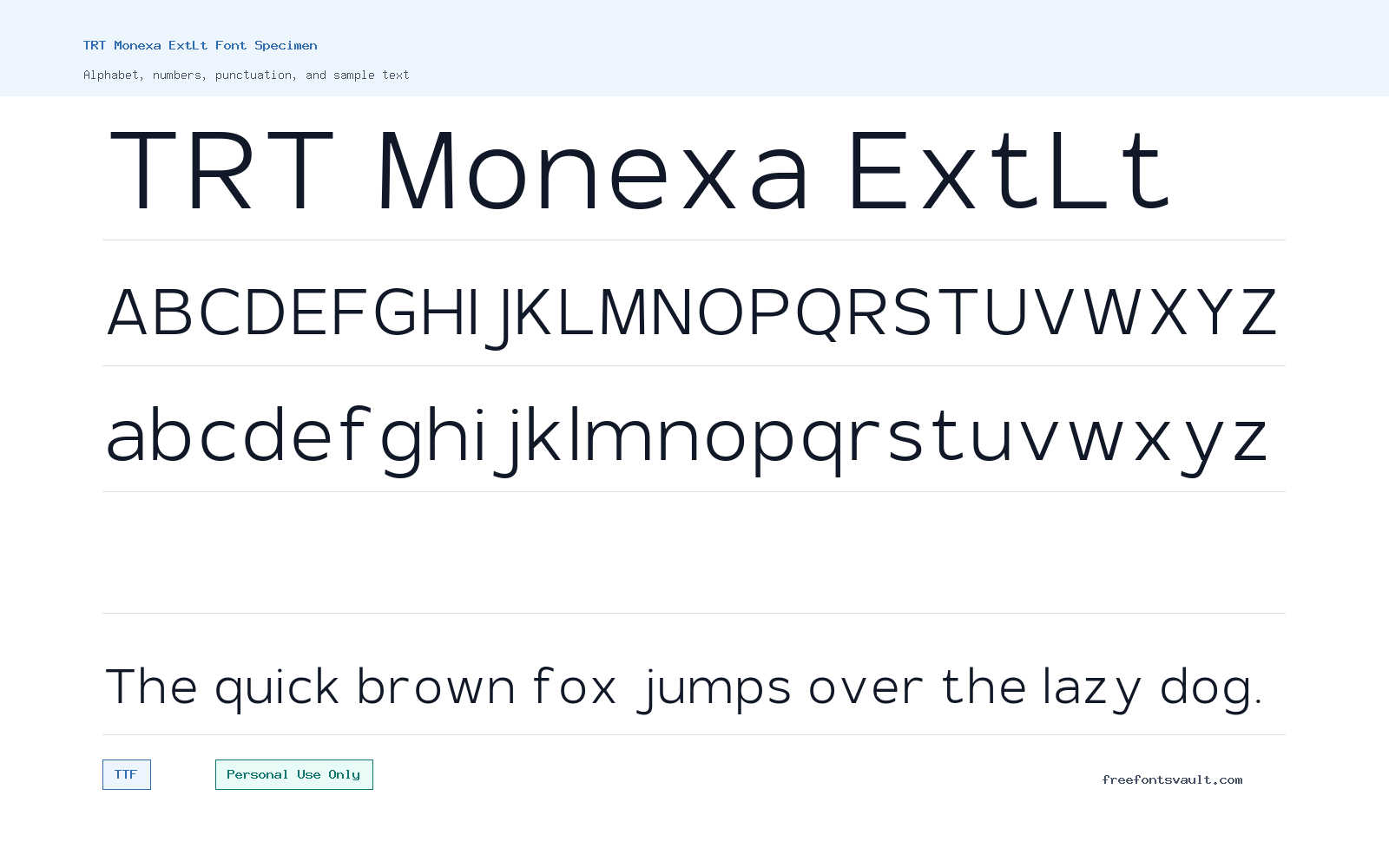
TRT Monexa ExtLt
- Designer Hanif Dwi Sulistyo of Truetype
- Foundry Truetype
TRT Monexa ExtLt font.
TRT Monexa ExtLt is an extra-light sans serif font with a clean, restrained look that works best when you want thin lettering, open spacing, and a modern display feel.
About TRT Monexa ExtLt
TRT Monexa ExtLt is the ExtraLight demo style from the TRT Monexa sans serif family. The font file is provided in TTF format and uses a normal style with a light 300 weight, so it is better suited to display work than dense body text. Its thin strokes can give titles, name marks, headers, packaging drafts, and social graphics a polished look without making the design feel heavy. Because this is an extra-light cut, the main thing to watch is contrast: it may look elegant at larger sizes, but it can become harder to read when used very small, on low-resolution screens, or over busy backgrounds.
- Extra-light sans serif style with a 300 weight for clean display typography.
- Normal upright style, useful for headings, logo drafts, posters, and interface mockups.
- Thin stroke weight that benefits from larger sizes, generous spacing, and strong background contrast.
- Demo font listing tied to the TRT Monexa sans serif family.
- Minimal logo concepts and wordmark drafts
- Website hero headings and landing page mockups
- Editorial covers, portfolio headers, and presentation titles
- Social media quote cards with short text
- Packaging or label concepts where light typography fits the layout
The designer is listed as Hanif Dwi Sulistyo of Truetype, with Truetype also listed as the foundry.
For the best results, try TRT Monexa ExtLt at larger sizes first. Thin sans serif fonts often need more letter spacing and stronger contrast than heavier fonts. In logo work, test the mark in black, white, small sizes, and on mobile screens before committing. In posters or web layouts, pair it with a sturdier sans serif or a readable serif for body copy so the page does not depend on extra-light text for important information.
What kind of font is TRT Monexa ExtLt?
It is an extra-light sans serif style from the TRT Monexa family, intended more for clean display use than long reading text.
Is TRT Monexa ExtLt good for body text?
It is not the strongest choice for long paragraphs. Use it for headings or short text, then pair it with a more readable font for body copy.
What should I pair with TRT Monexa ExtLt?
Pair it with a heavier sans serif for practical interface text, or with a readable serif if you want contrast in editorial layouts. Keep the lighter style for emphasis and display.